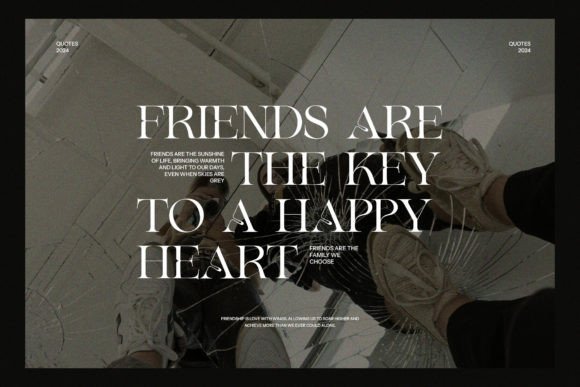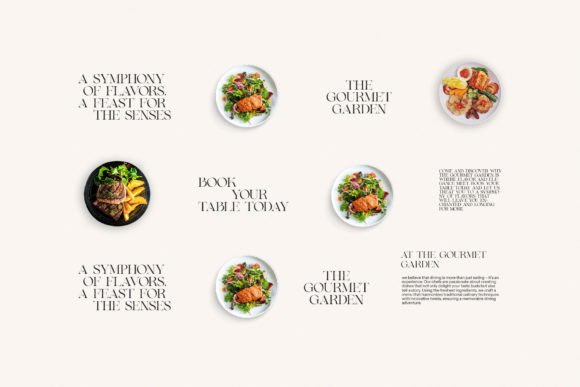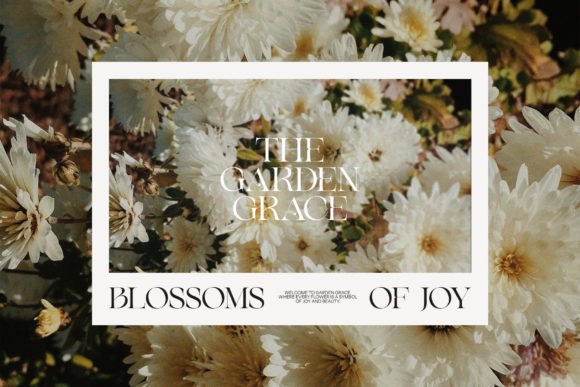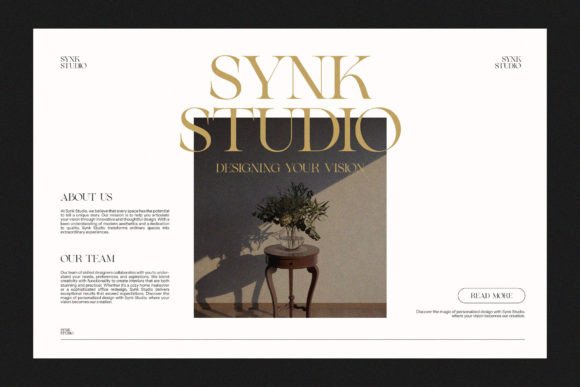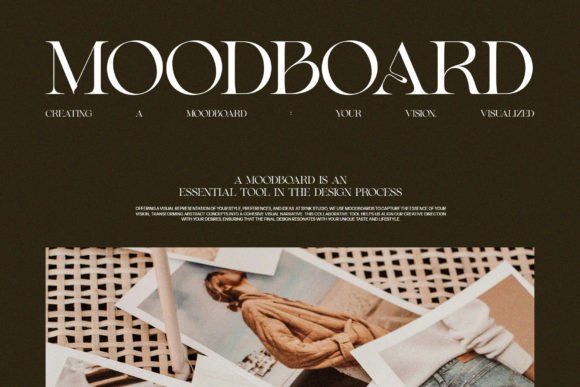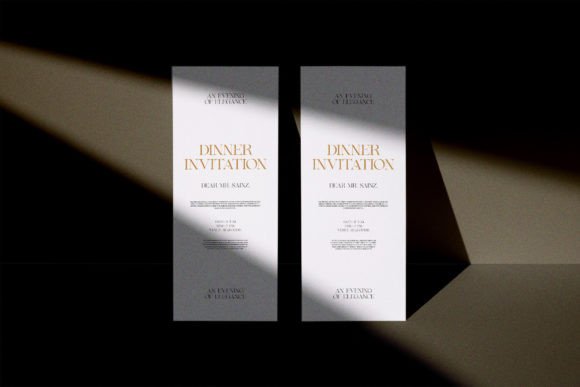
Gilkys Font: Elevate Your Designs with Elegance and Luxury
In the world of design, typography plays a crucial role in conveying the tone and personality of a brand. When it comes to creating a lasting impression, a well-crafted font can make all the difference. Introducing Gilkys Font, a sophisticated and elegant serif font designed to meet the demands of modern designers. With its luxurious feel and versatility, Gilkys Font is the perfect choice for a wide range of design applications.
The Essence of Gilkys Font
Gilkys Font is a masterpiece of typographic design, crafted with precision and attention to detail. Its serif design exudes a sense of refinement and sophistication, making it ideal for high-end branding projects, logos, and advertisements. The font’s elegant lines and curves create a sense of fluidity, allowing it to adapt seamlessly to various design contexts.
Unleash Your Creativity with Gilkys Font
Whether you’re a seasoned designer or a crafty entrepreneur, Gilkys Font offers endless possibilities for creative expression. This versatile font can be used for:
- Branding projects: Establish a strong brand identity with Gilkys Font’s distinctive and memorable style.
- Logos: Create a lasting impression with a custom logo that showcases your brand’s personality.
- Social media posts: Elevate your online presence with eye-catching typography that sets you apart.
- Advertisements: Grab attention and convey your message with confidence using Gilkys Font’s luxurious feel.
- Labels and product packaging: Add a touch of sophistication to your products and make them stand out on store shelves.
- Photography: Use Gilkys Font to create stunning watermarks that protect your images while adding an air of elegance.
- Wedding designs: Make your special day even more memorable with beautiful, custom wedding stationery and decor.
- Invitations and product designs: Create unique and stylish invitations, business cards, and other promotional materials.
- Stationery: Upgrade your everyday correspondence with elegant letters, notes, and journals.
Readability and Versatility
One of the key benefits of Gilkys Font is its exceptional readability. Even at smaller font sizes, the text remains clear and legible, making it perfect for body text, captions, and other applications where readability is crucial. Additionally, Gilkys Font’s versatility allows it to be used in a wide range of design contexts, from formal and corporate to creative and playful.
Why Choose Gilkys Font?
- Elegance and luxury: Gilkys Font embodies the perfect blend of sophistication and refinement.
- Versatility: Use Gilkys Font for a wide range of design applications, from branding and logos to social media and stationery.
- Readability: Enjoy exceptional readability, even at smaller font sizes.
- High-quality design: Gilkys Font is crafted with precision and attention to detail, ensuring a professional finish.
In conclusion, Gilkys Font is a game-changer for designers and crafters looking to elevate their designs with elegance and luxury. With its sophisticated serif design, exceptional readability, and versatility, Gilkys Font is the perfect choice for a wide range of design applications. Whether you’re working on a high-end branding project or a creative side project, Gilkys Font is sure to make a lasting impression.